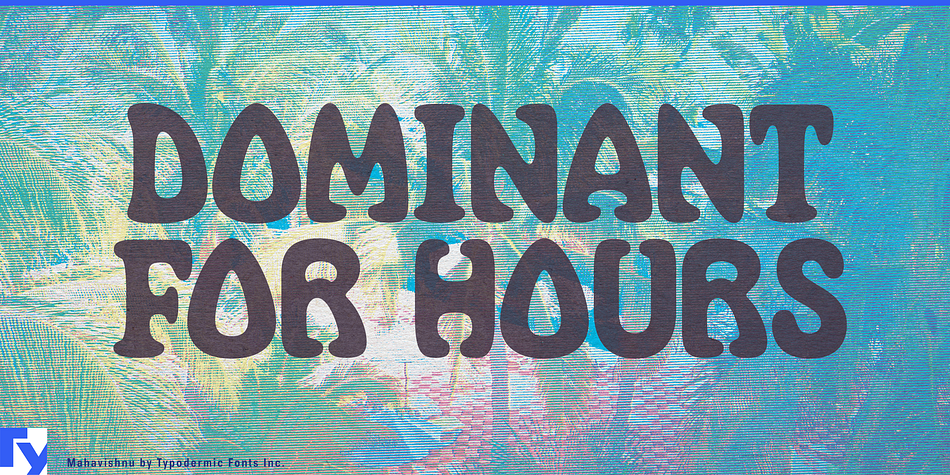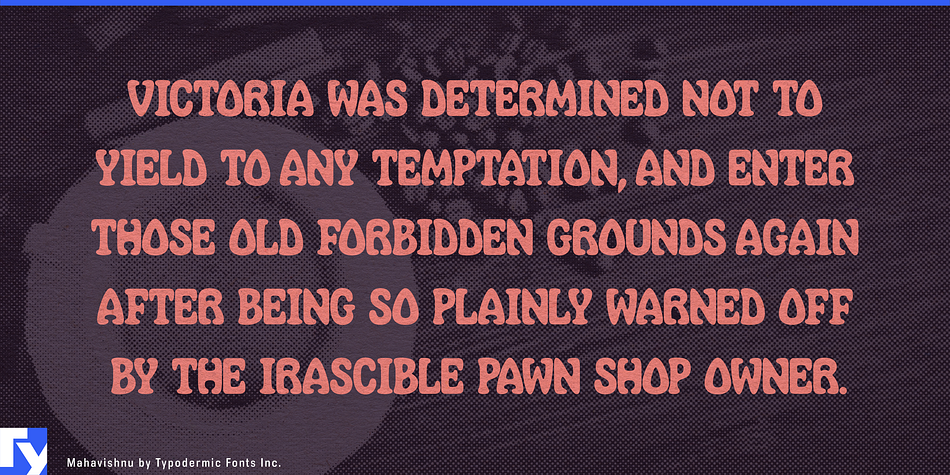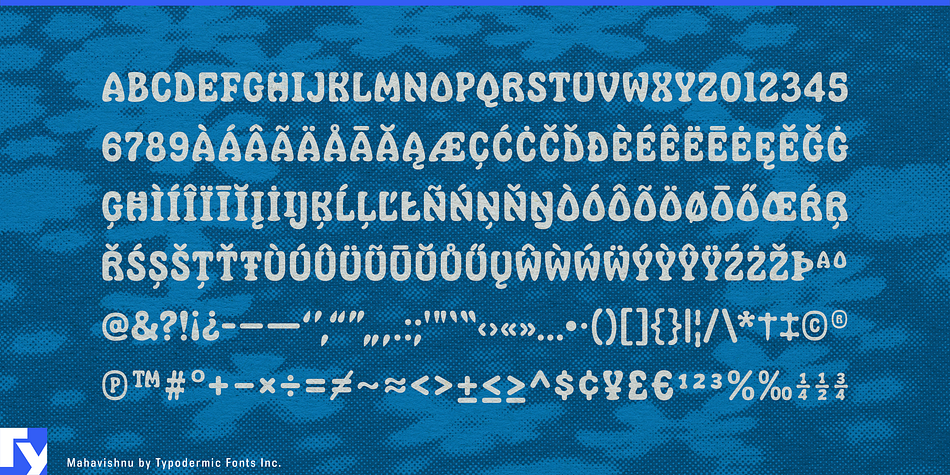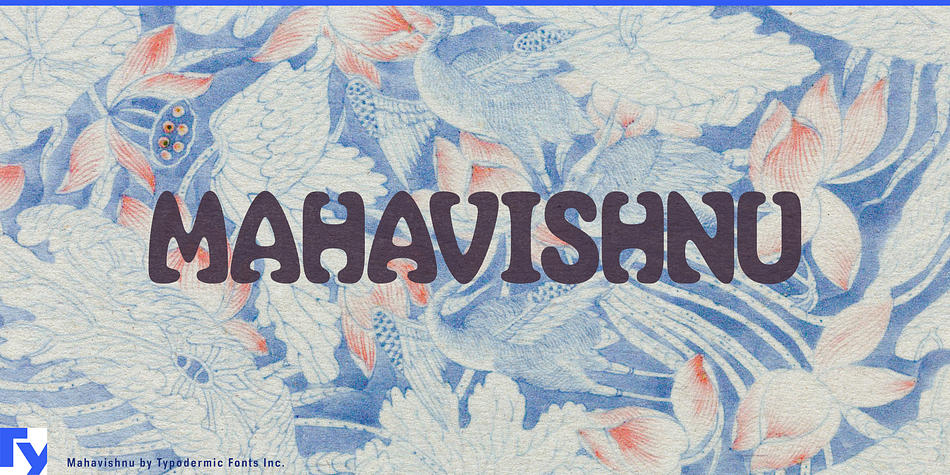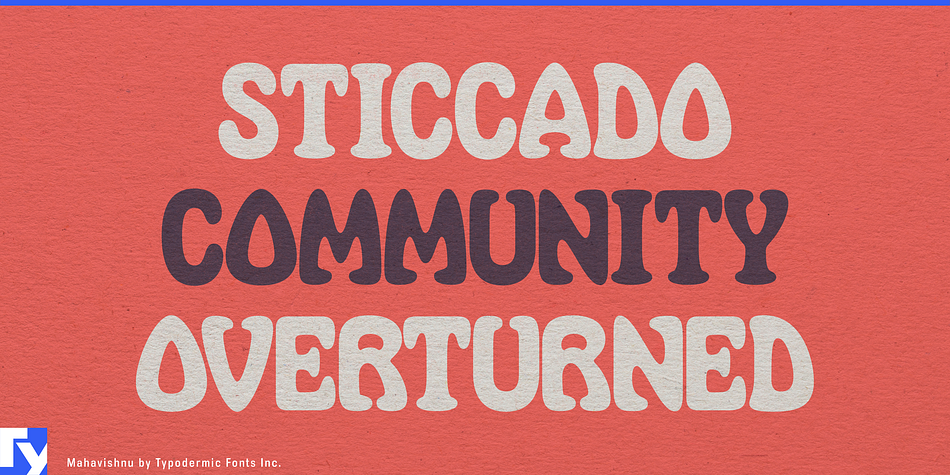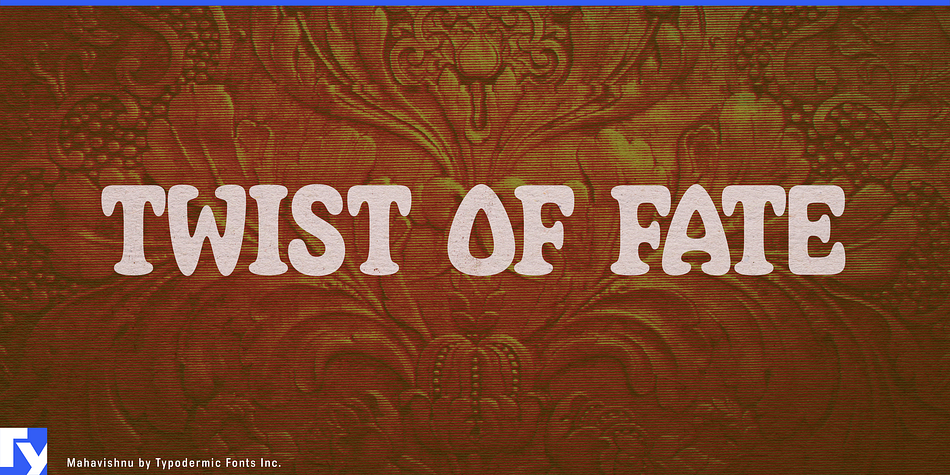
Mahavishnu is a retro font published by Typodermic Fonts Inc.
Mahavishnu is a soft, display font inspired by the 1970s album covers of the Mahavishnu Orchestra.